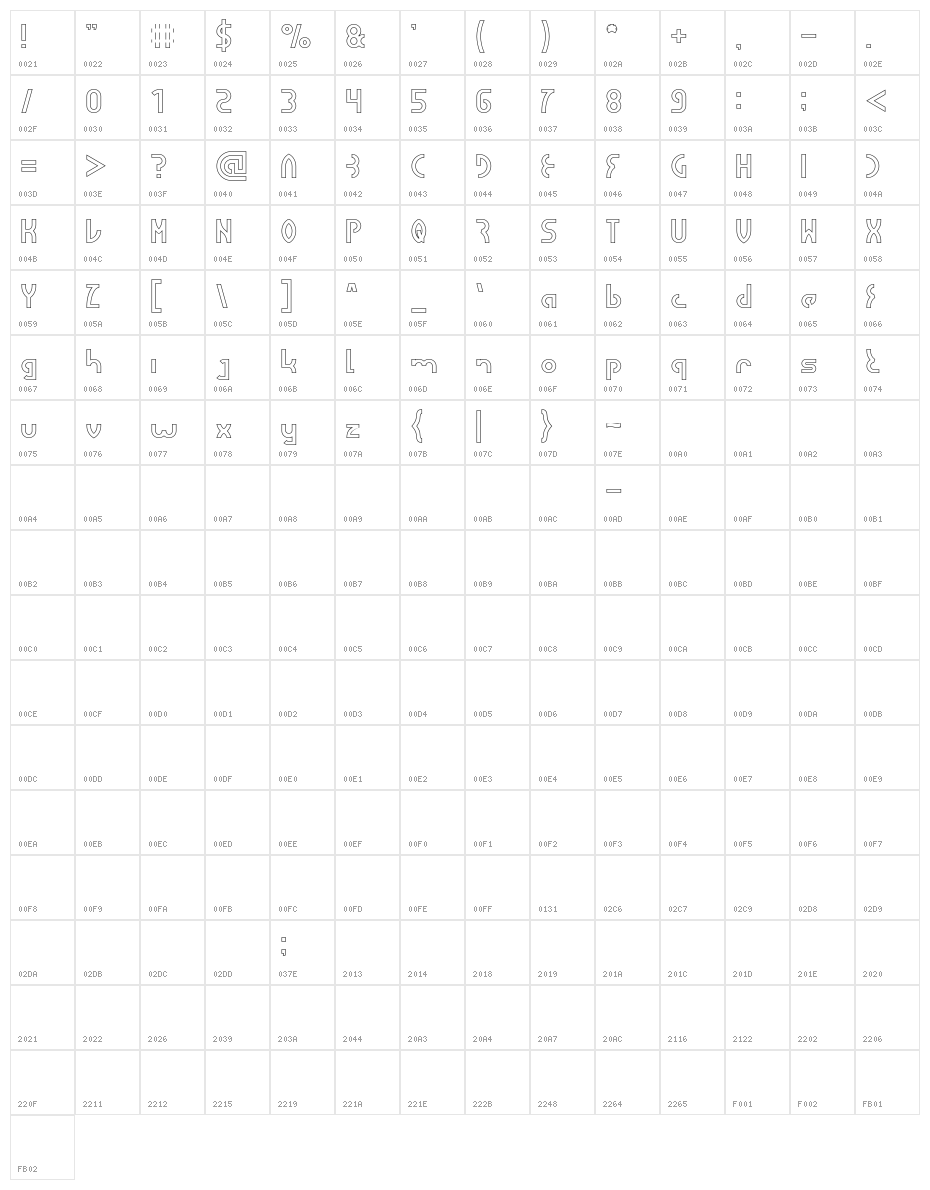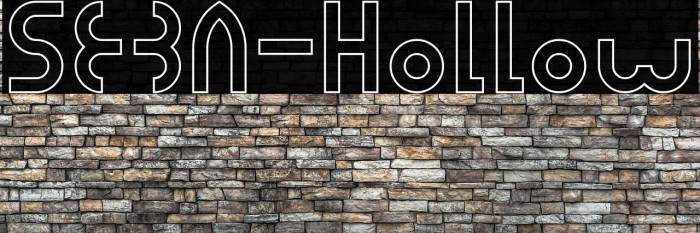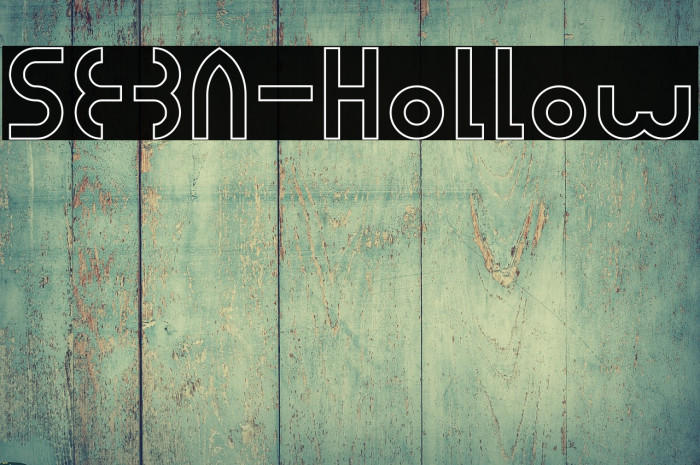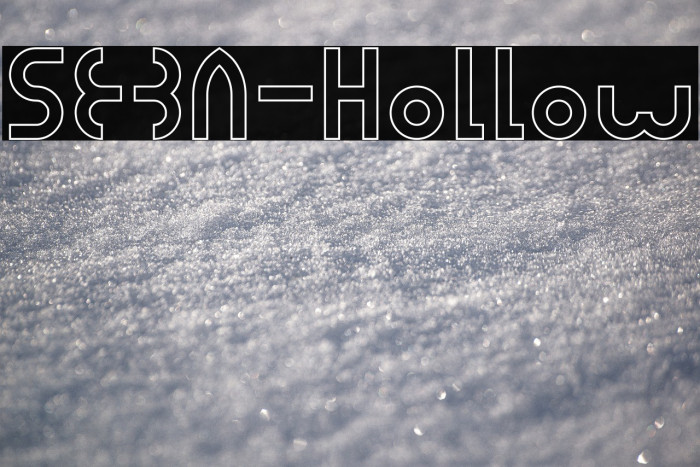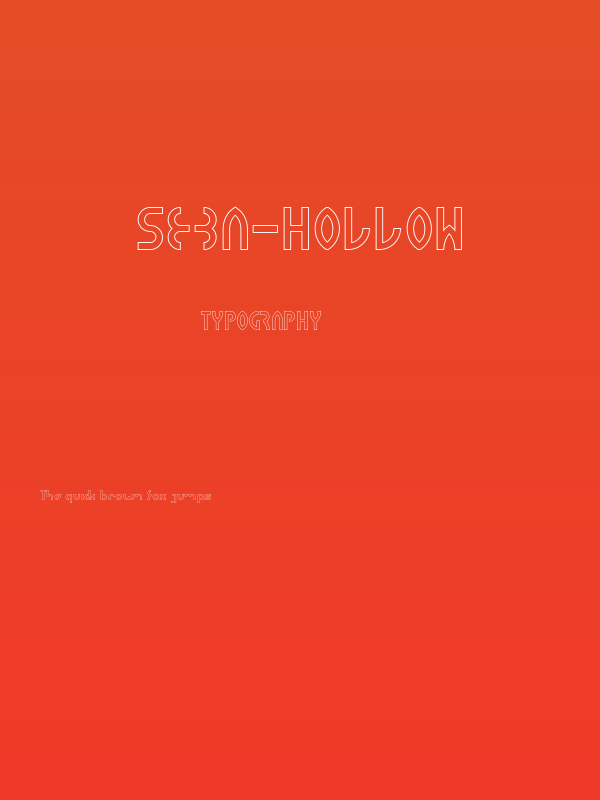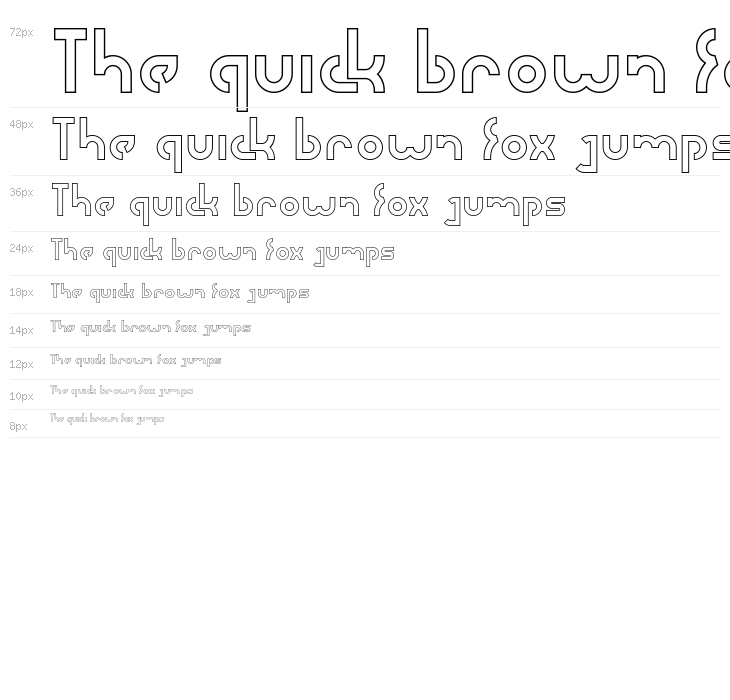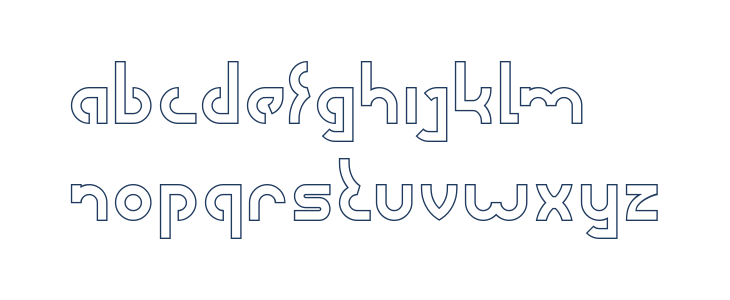
SEBA-Hollow Font
SEBA-Hollow Description
This font features a unique hollow design with geometric shapes and clean lines, giving it a futuristic and modern appearance. The uppercase letters are bold and structured, while the lowercase letters maintain a consistent style with a slightly softer edge. Numbers and special characters follow the same hollow and geometric theme, ensuring visual harmony across all elements. The font's open spaces within each character create a sense of lightness and transparency, making it ideal for creative and eye-catching designs.